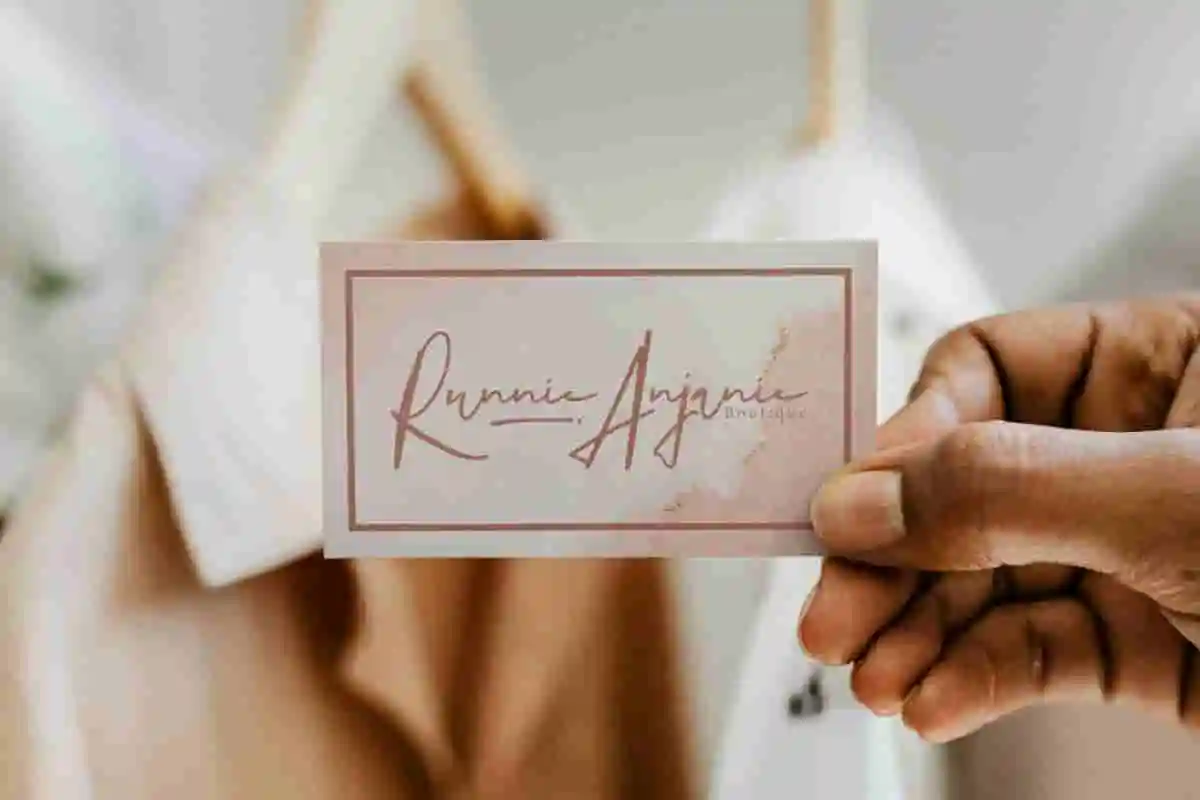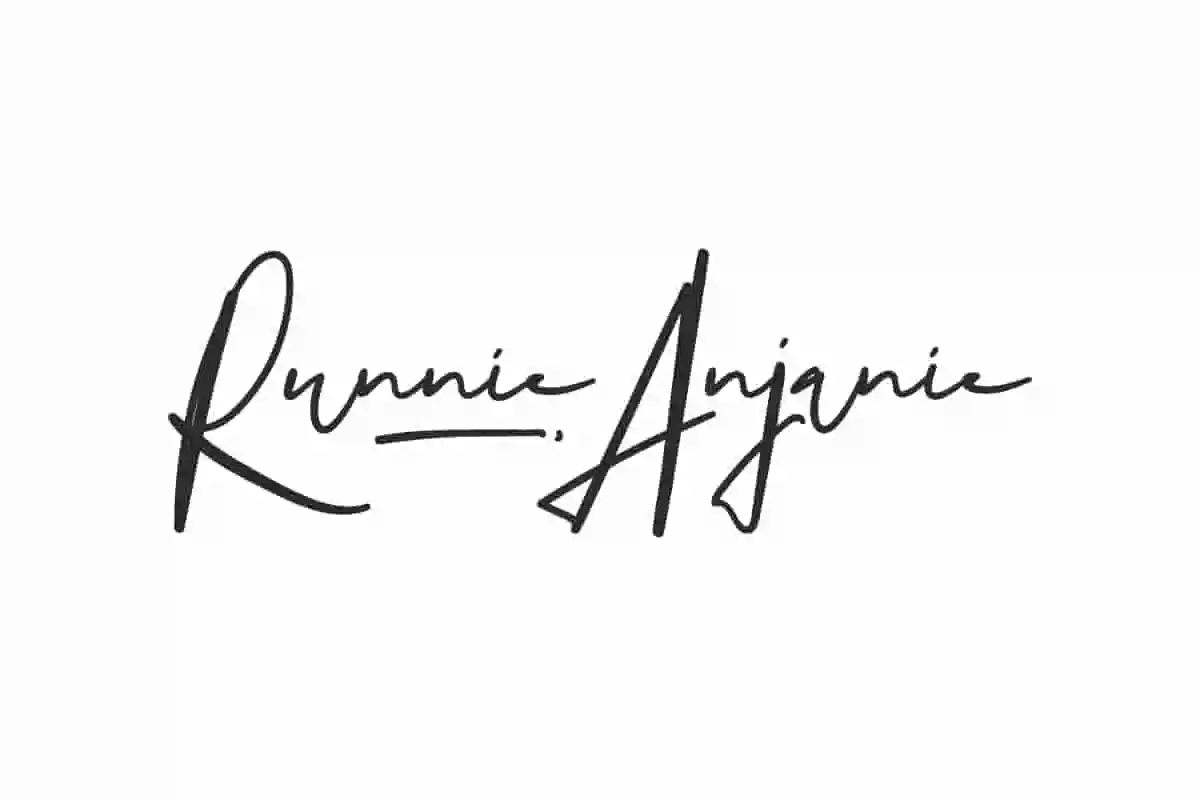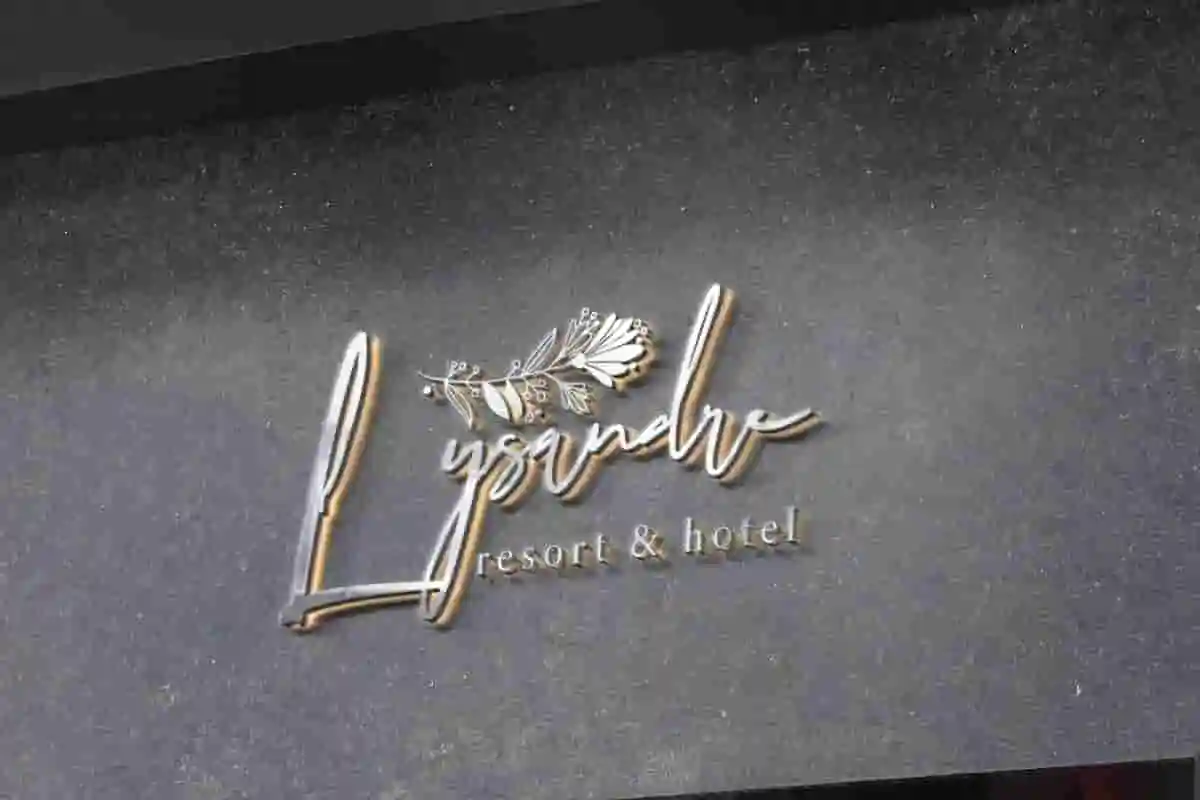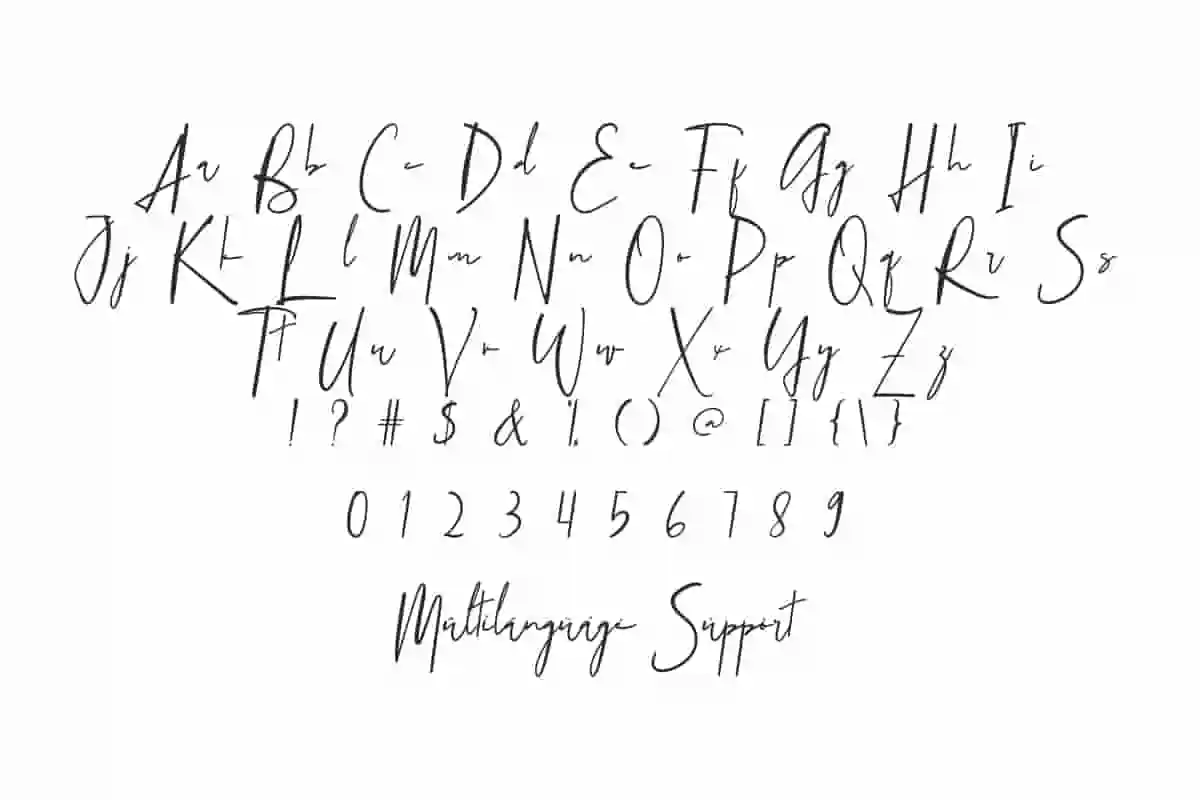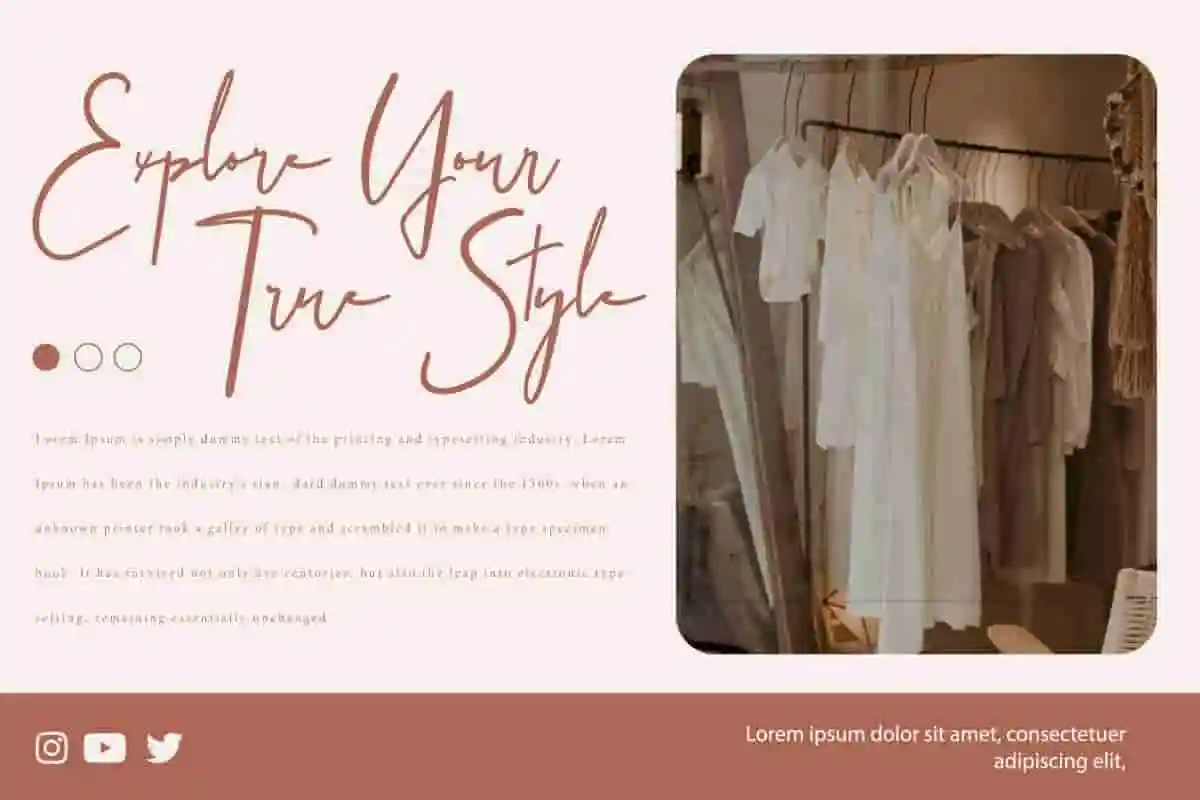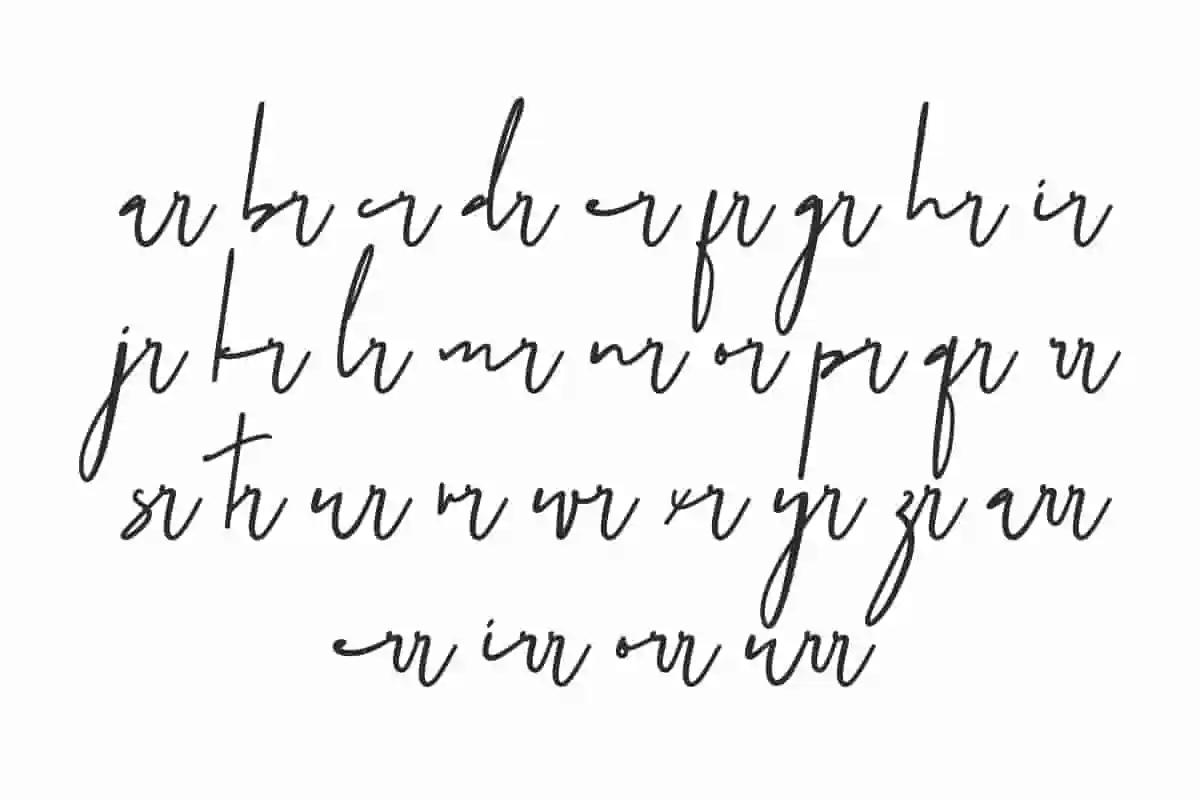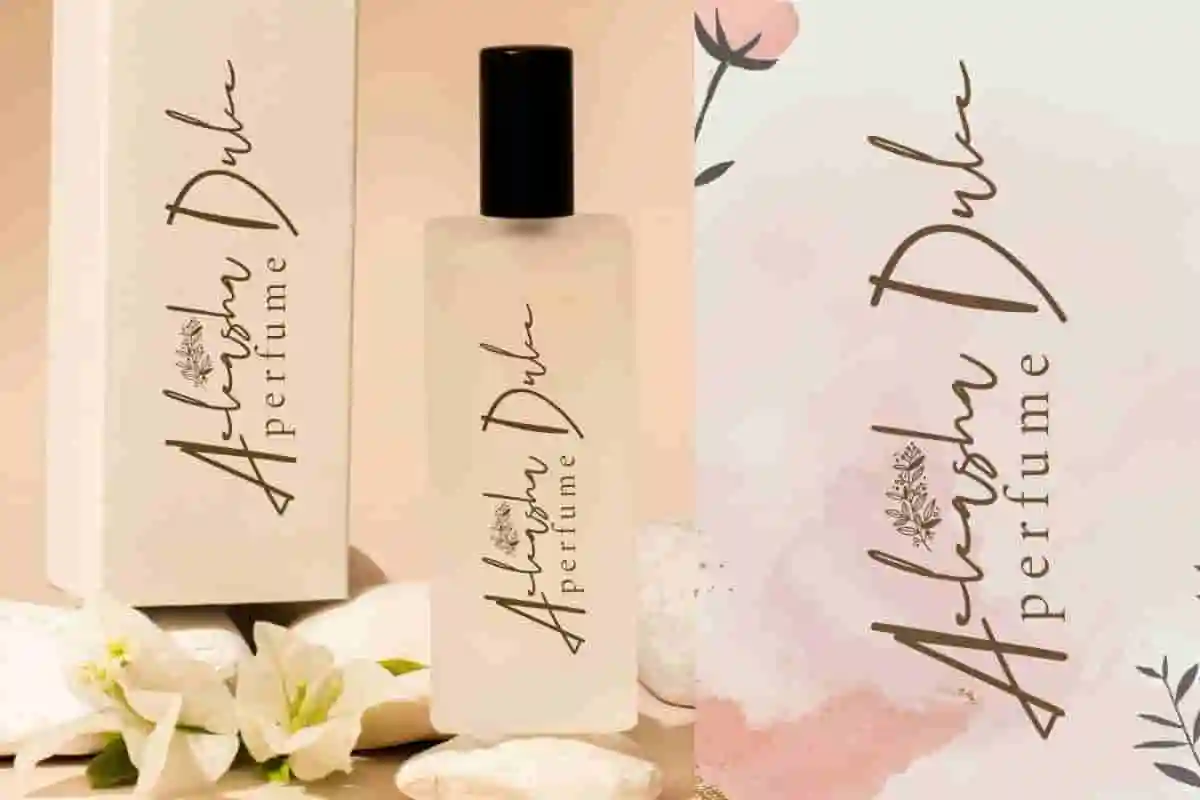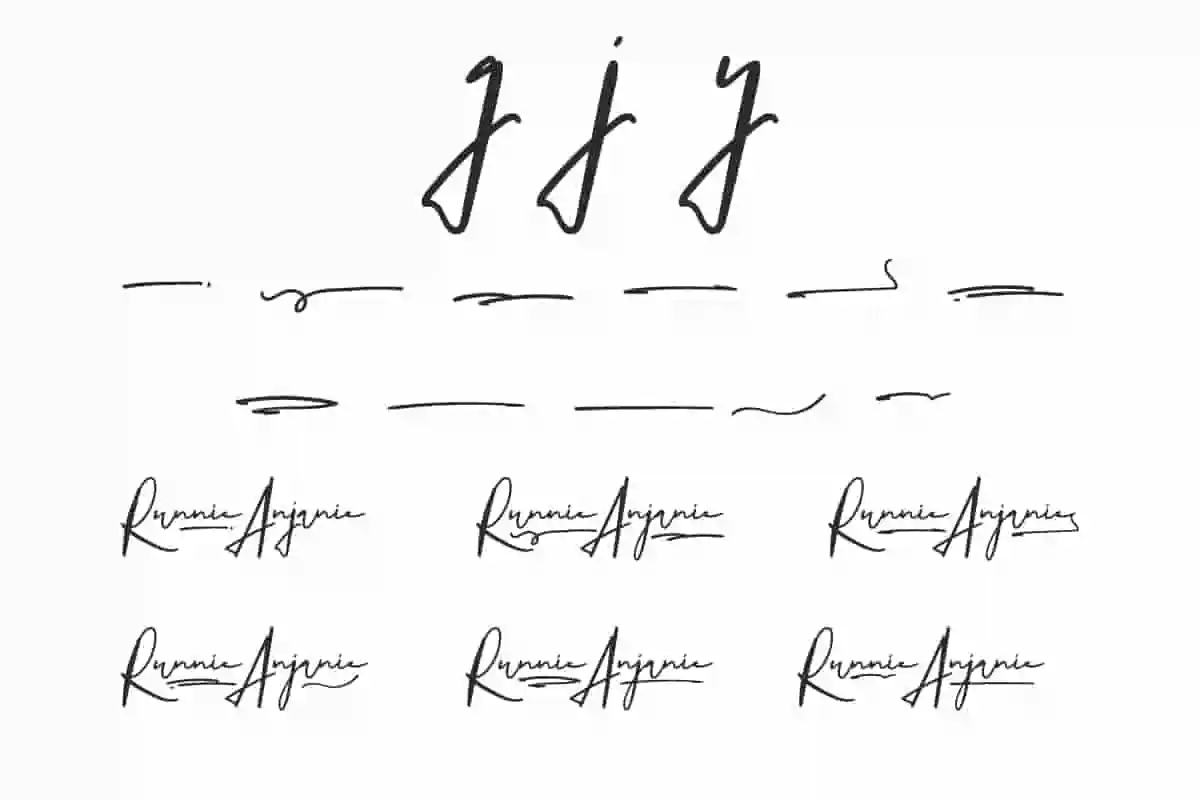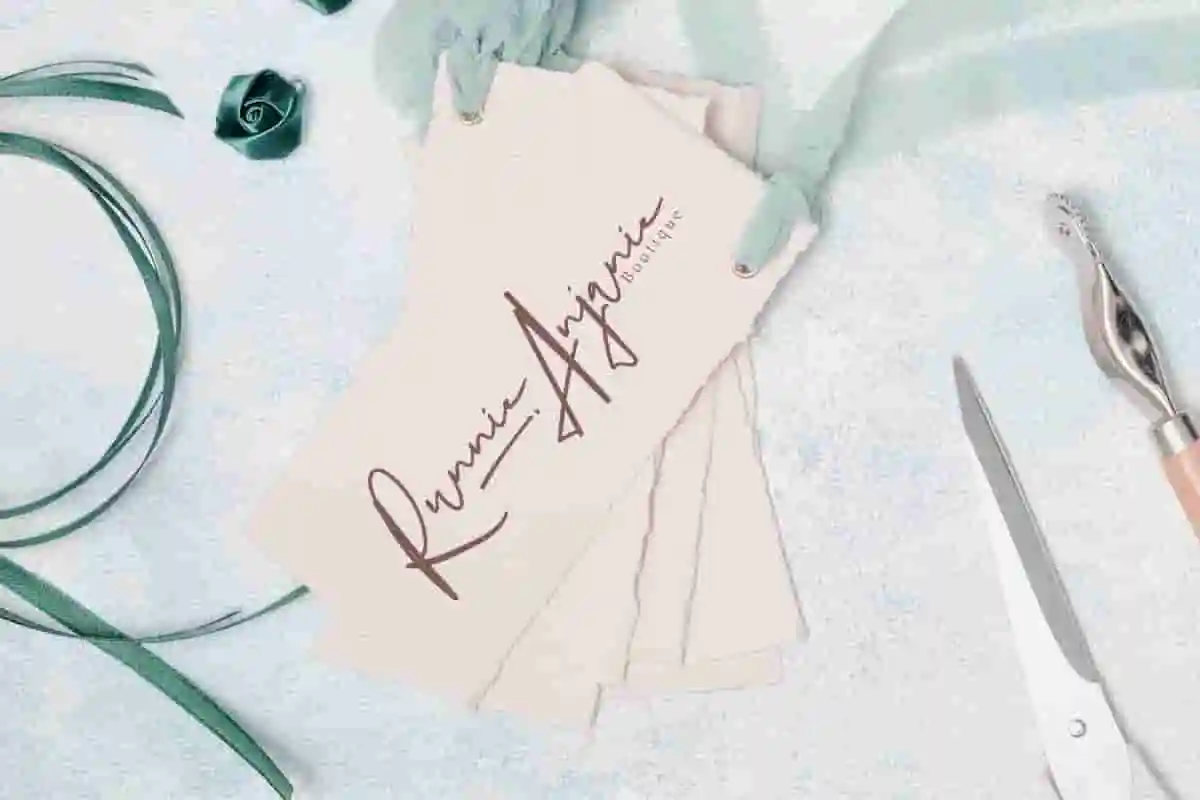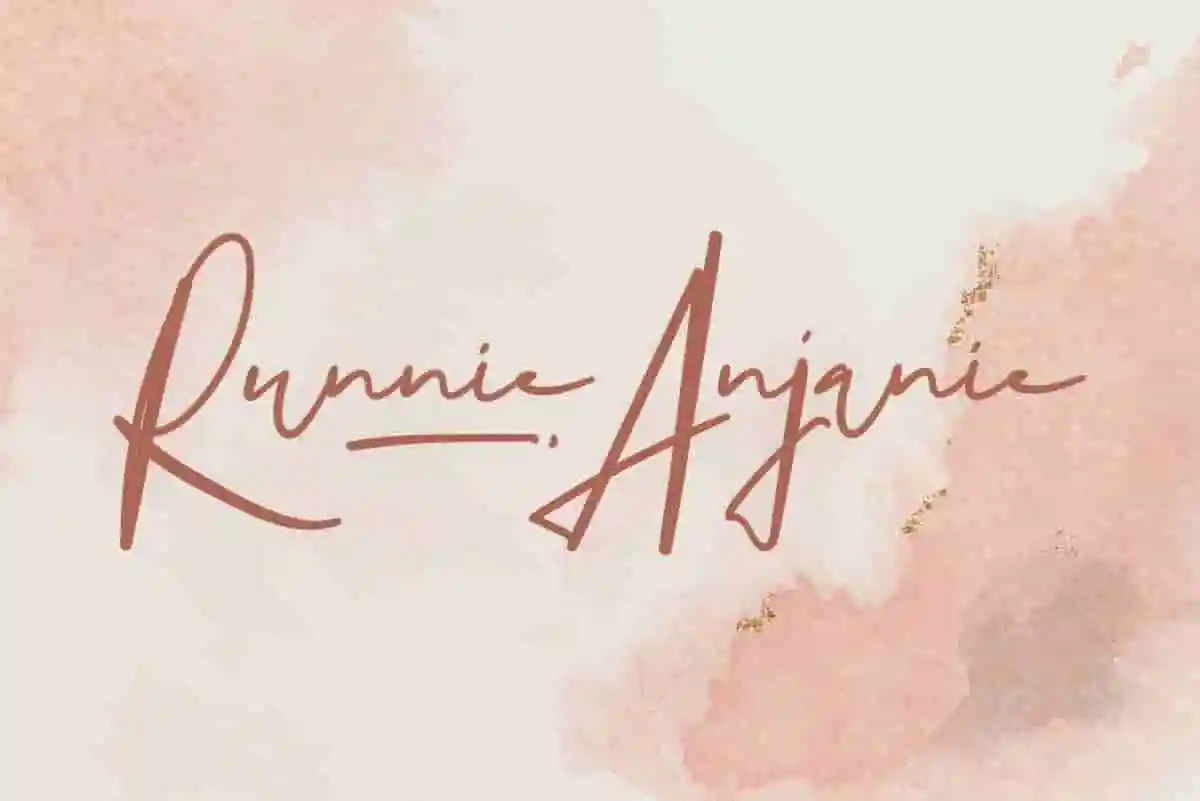
Runnie Anjanie Font is a handwritten font with an elegant visual of a signature. Created with style, this font is flexible for various design needs.
Runnie Anjanie Font is a charming signature font equipped with many ligatures of combined letters that add beauty to this font. It is like most people’s handwriting which is simple and beautiful but does not reduce the aesthetic value of the handwriting. This font is suitable for card designs, headers, label, logo, mockup, signs, stationery, template, title, watermark, etc.
Runnie Anjanie Font includes a complete set of Basic Uppercase and Lowercase Characters, Numbers, Punctuation Marks and Symbols. There are also Ligature, Alternate and Swoosh which will exude a contemporary appeal that follows the latest trends. The font will be suitable for boutique, fashion, hotel, and more.